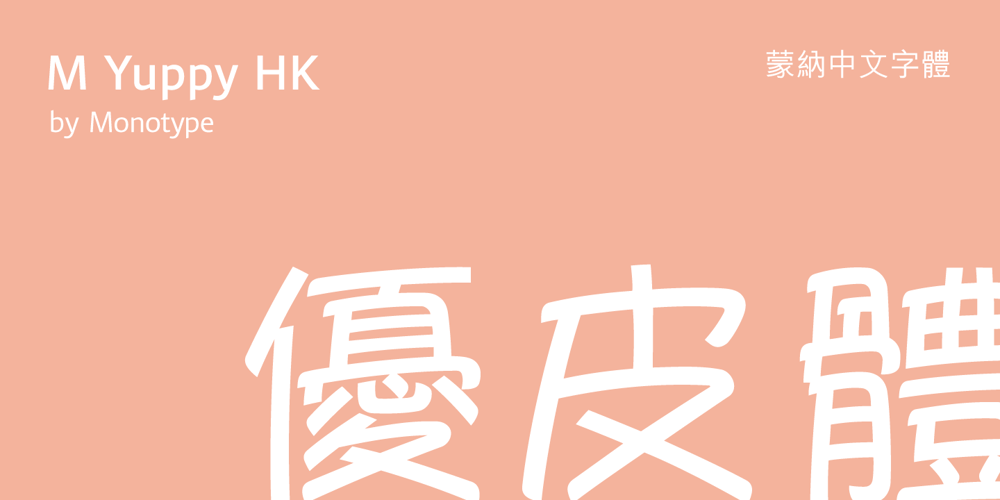
M Yuppy HK
M Yuppy HK font
M Yuppy HK Font Family was designed by Monotype HK Design and published by Monotype HK. M Yuppy HK contains 1 styles and family package options. M Yuppy HK is a handwritten style Traditional Chinese typeface. Handwritten font designs are derived directly from hand-drawn lettering or handwriting using analogue tools. Handwritten style Traditional Chinese fonts can include typefaces that reference or reinterpret traditional calligraphy, using classical exemplars by calligraphic masters.